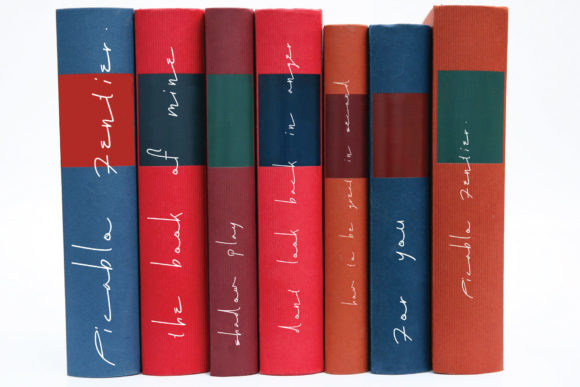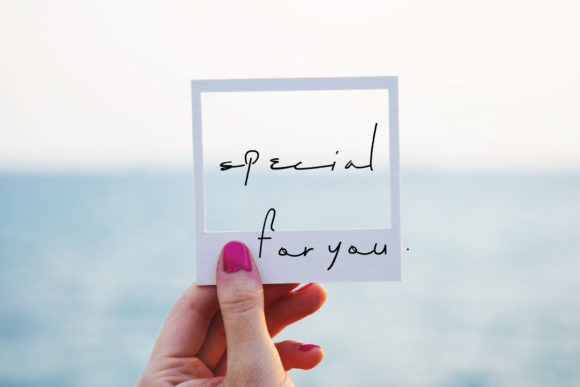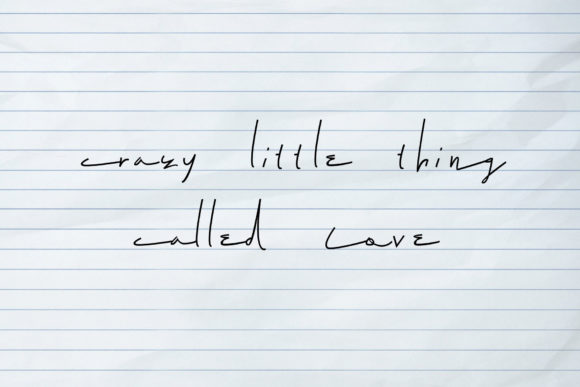
Introduction to Picablo Fentier Font
Picablo Fentier is a distinct handwritten font.
It will look great on logos & branding, wedding designs, social media posts, advertisements, poster, etc .
Key Features of Picablo Fentier Font